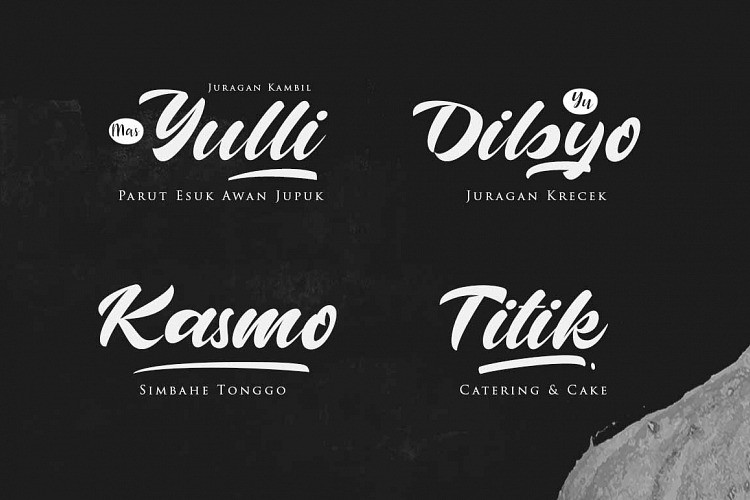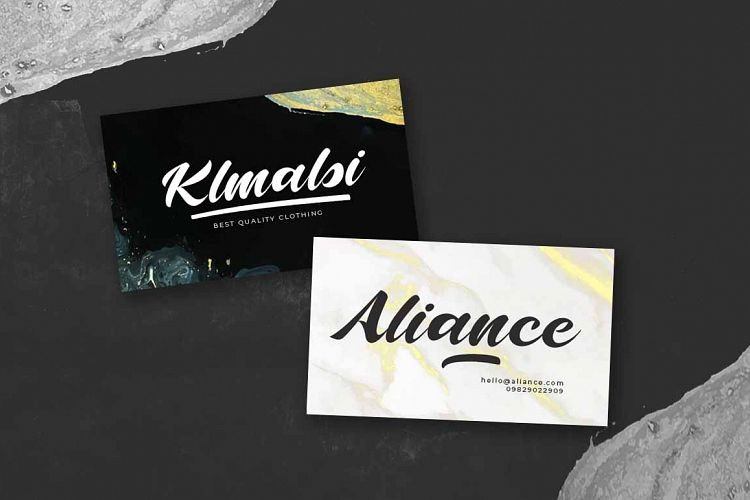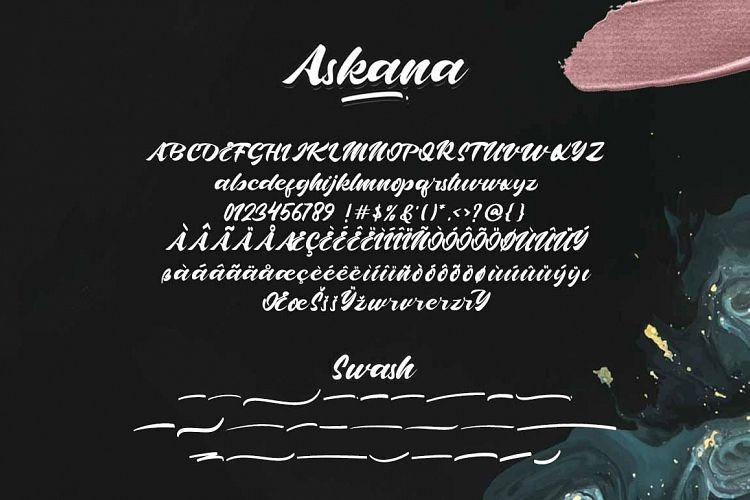
Askana Script Font
Introducing a bold script typeface, created by Agniardi in 2020. It is called Askana Font. It’s a clean and bold sript display. Prefect for any calligraphy lettering logo font. It’s modern bold script, a new fresh script with a sweet calligraphy-style, decorative characters and a dancing baseline! Askana Script is a logotype font with smooth curves so this font is great for Branding, Logo Design, Lettering, Logotype, Clothing, Poster, magazine and other design project.